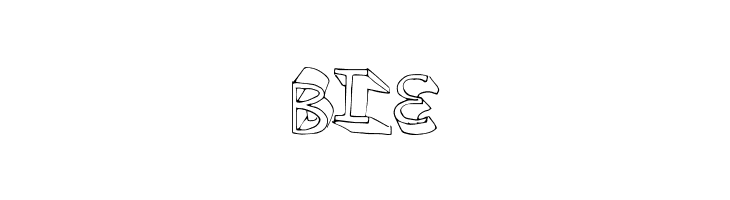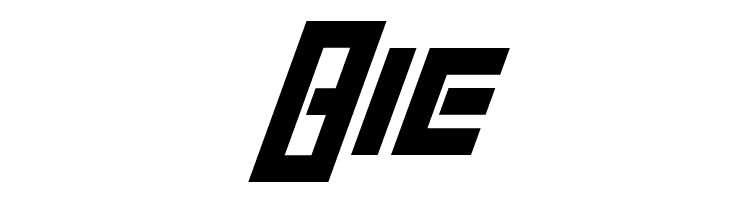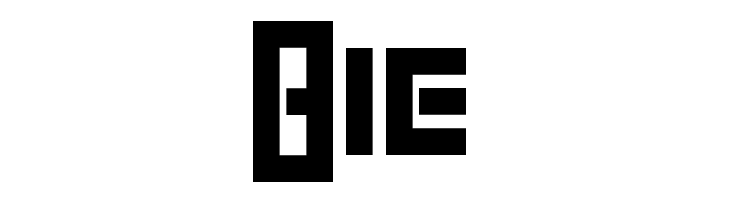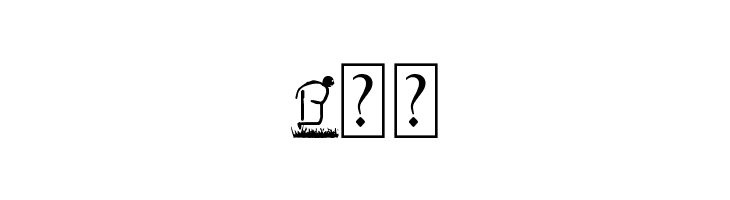
• expressions
( Amit Kumar )
A playful, nature-inspired decorative font with grass-like embellishments.
• ExtinctionEvent
( Fonts by Darrell Flood )
A bold, geometric font with a futuristic and industrial design.
• ExtinctionEvent Italic
( Fonts by Darrell Flood )
A bold, italicized font with a futuristic and angular design.
• Extra Hot Secretary
A bold, flame-themed font with dramatic and energetic design elements.
• EXTRA MACHINE
• ExtraDimension
A bold, three-dimensional font with a playful, extruded design.
• Extraordinary
A playful, hand-drawn font with rounded, flowing lines and a whimsical style.
• extravaganza-
( Fonts by Gyom Seguin - last-soundtrack.daportfolio.com )
A bold, distressed font with a grunge aesthetic and geometric shapes.
• Exynos
A futuristic, geometric font with bold, interconnected lines and a sci-fi aesthetic.